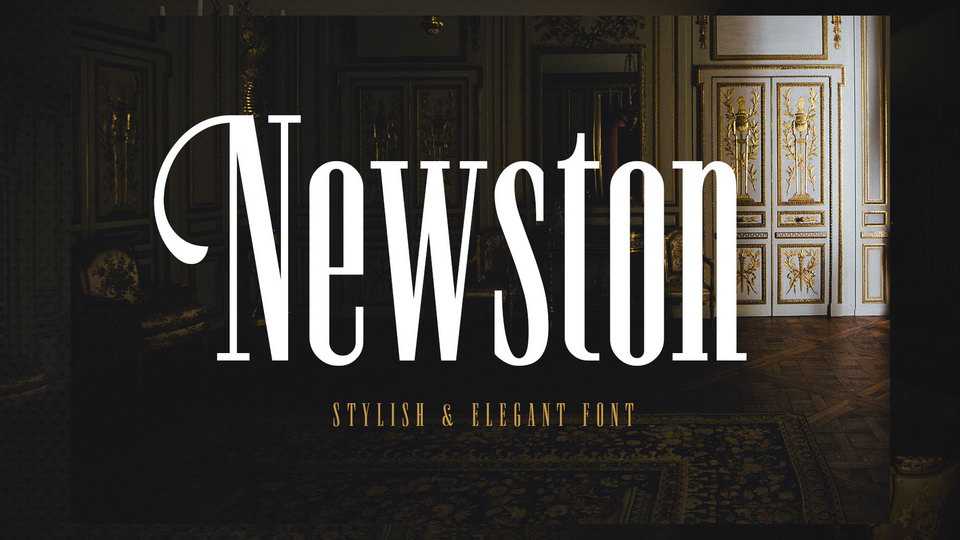
Download Newston font, a stylish and elegant serif typeface with a bold twist. Newston is perfect to add a layer of sophistication to any design project.